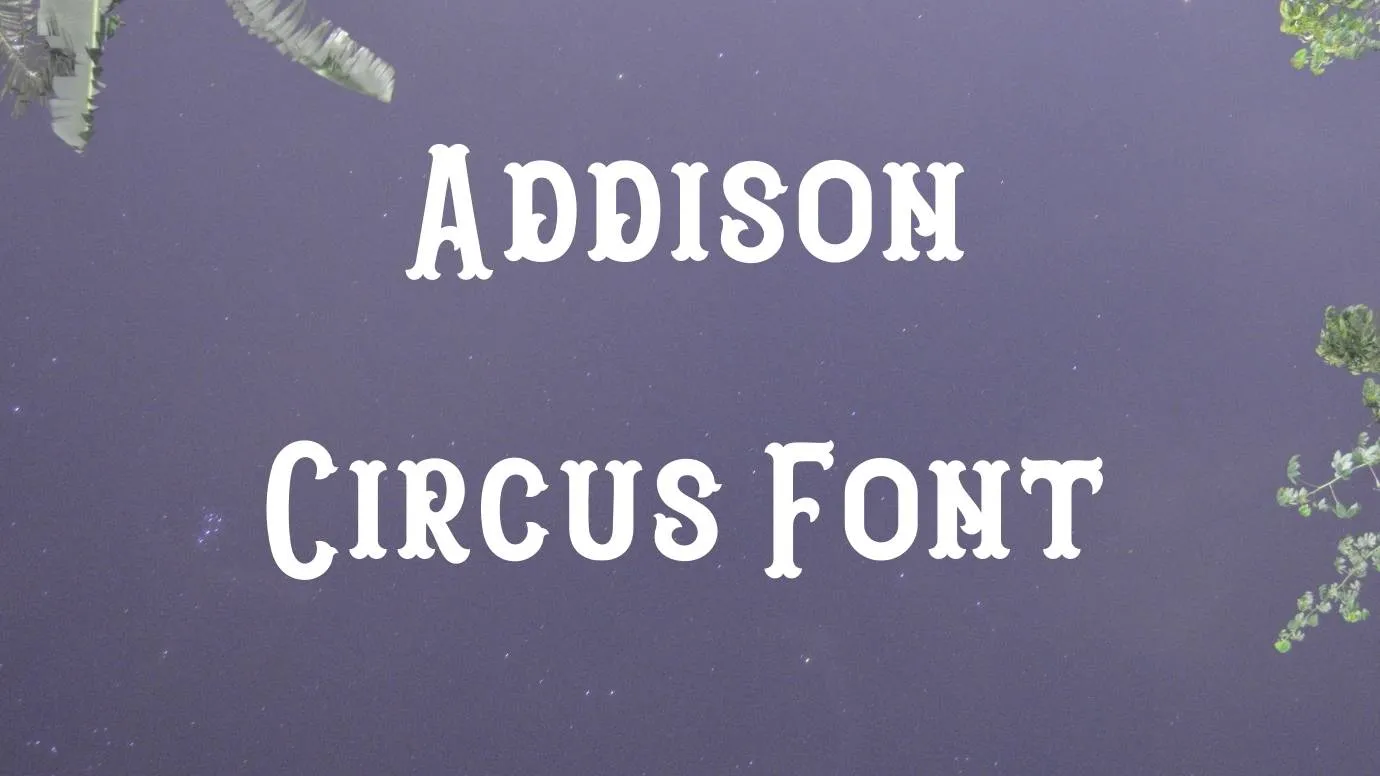
Addison Circus Font Family is a modern display typeface that has fancy and decorative bold characters. This font has only one style and it is best for creative display designs. It was shared and created by Kimmy Kirkwood.
Addison Circus Font